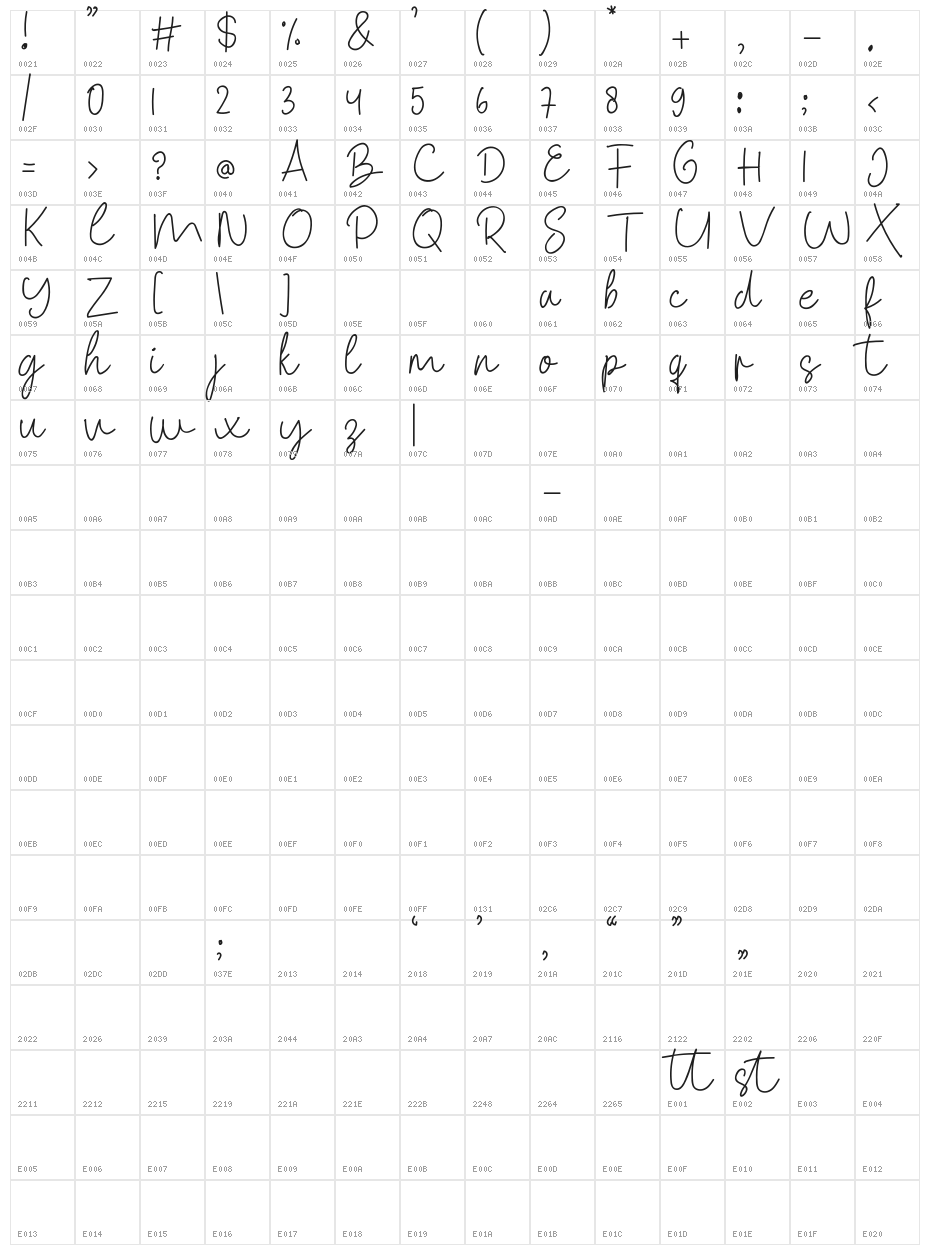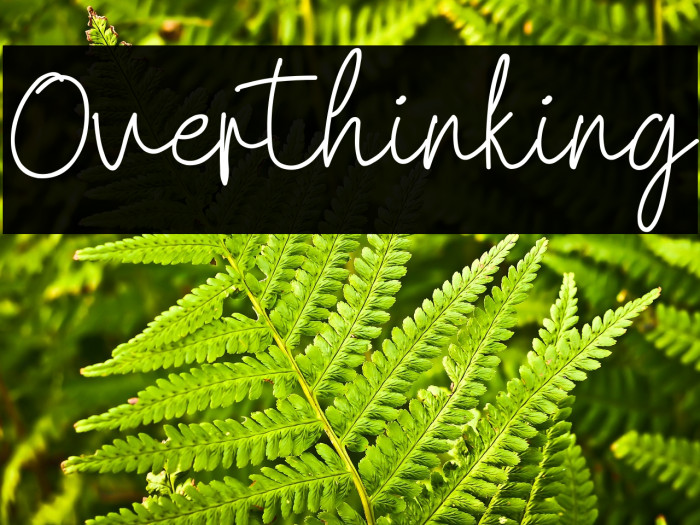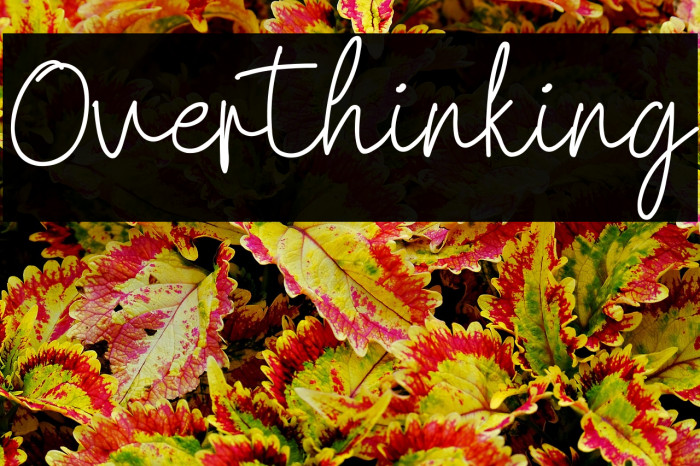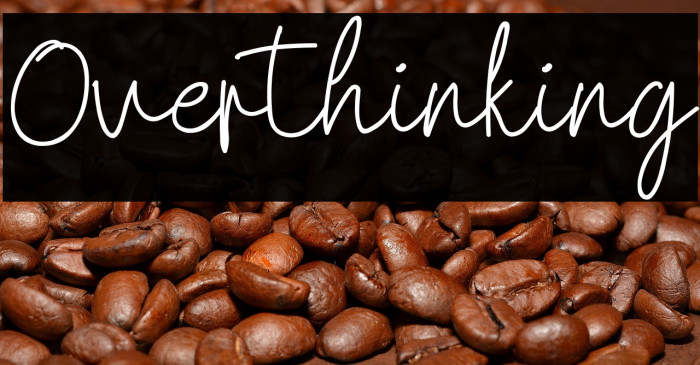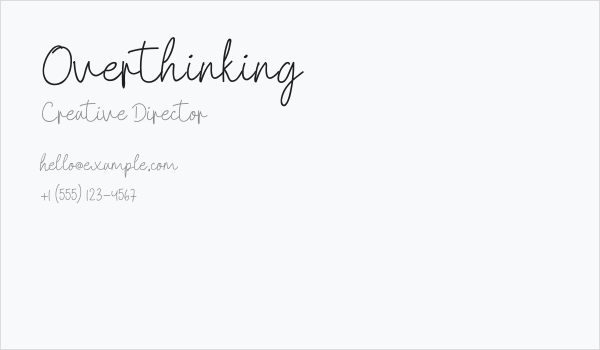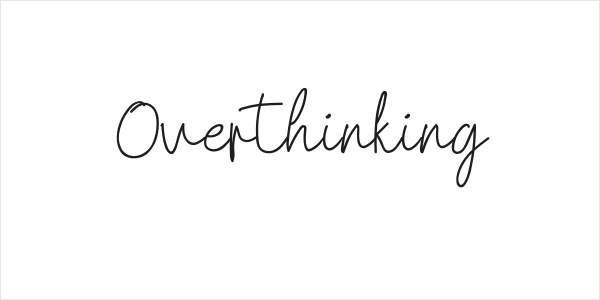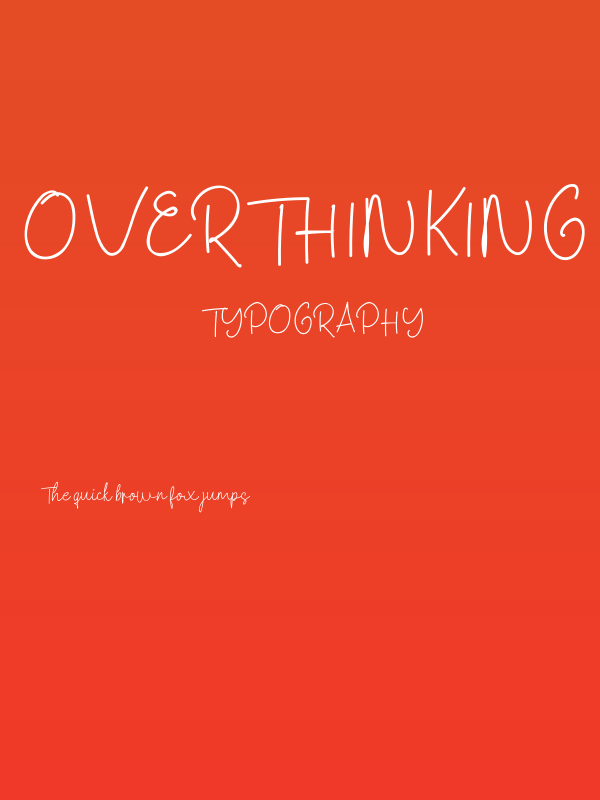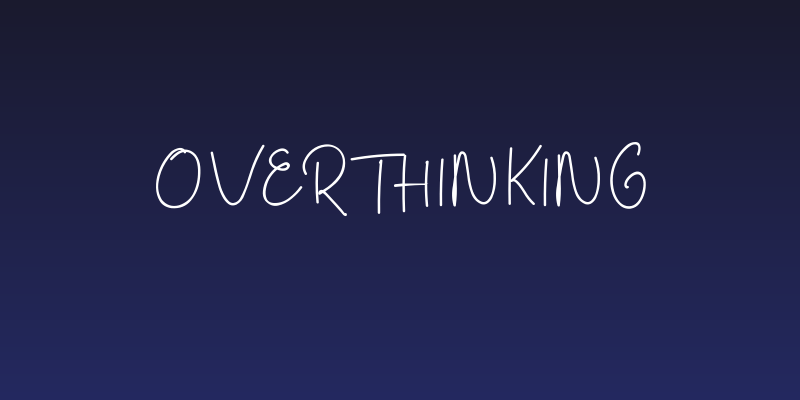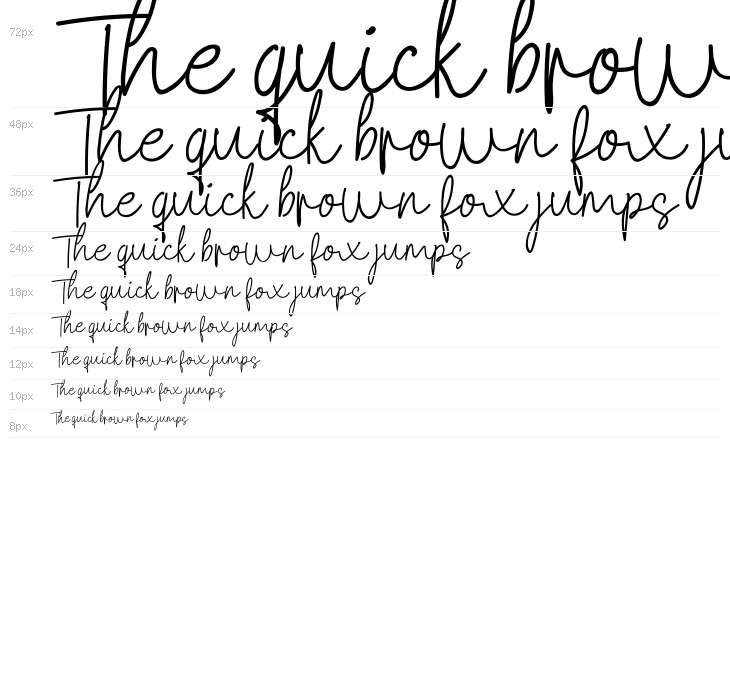
Overthinking Font
Overthinking Description
A playful, handwritten script font with a casual and flowing style, featuring smooth curves and a personal touch.
| Overall Style | Casual, Playful |
| Use Case | Logos, Invitations, Personal projects |
| Proposed Projects | Greeting cards, invitations, personal branding. |